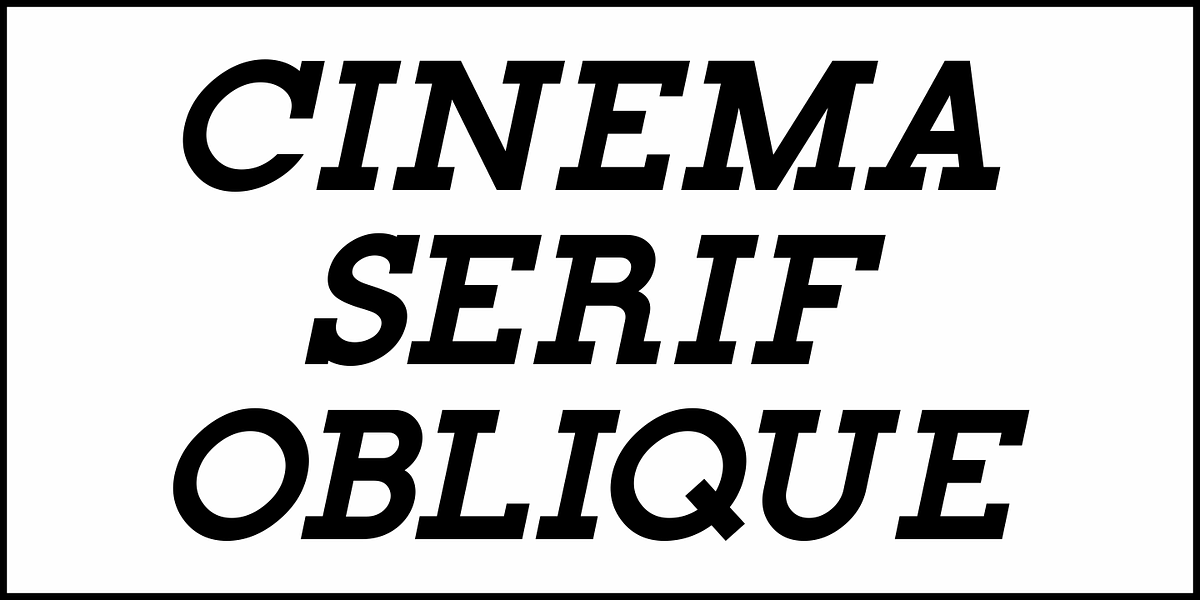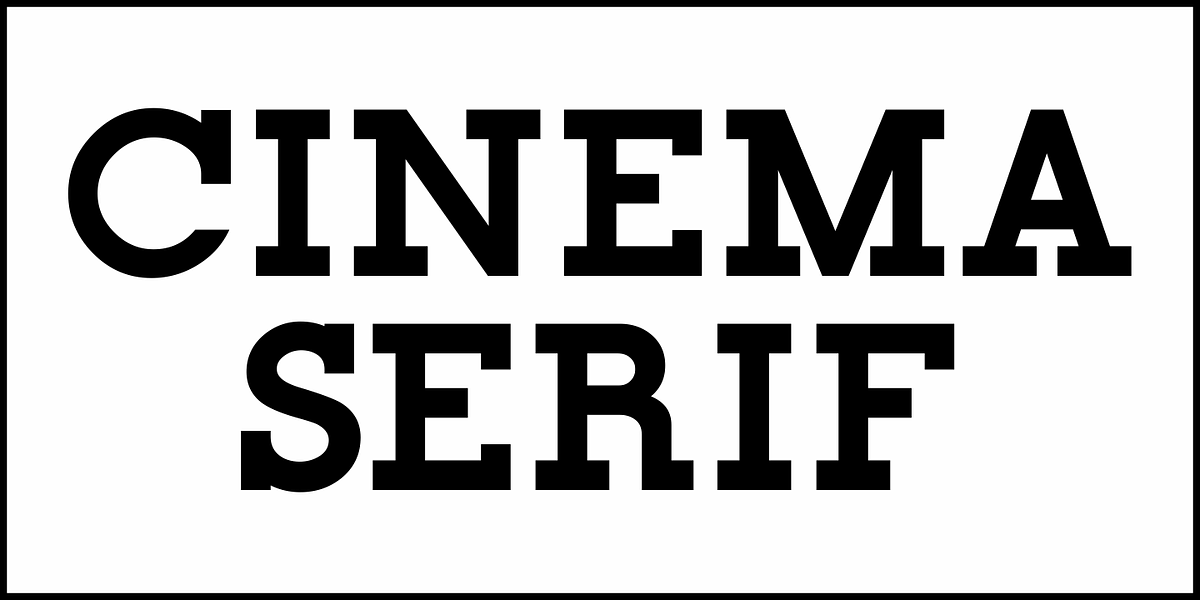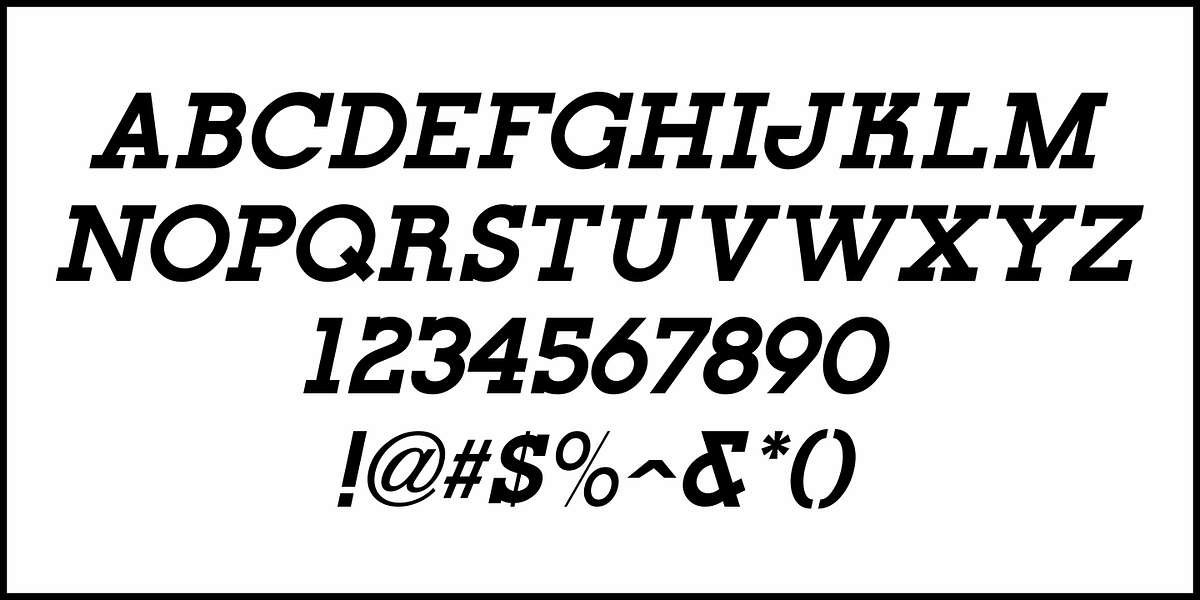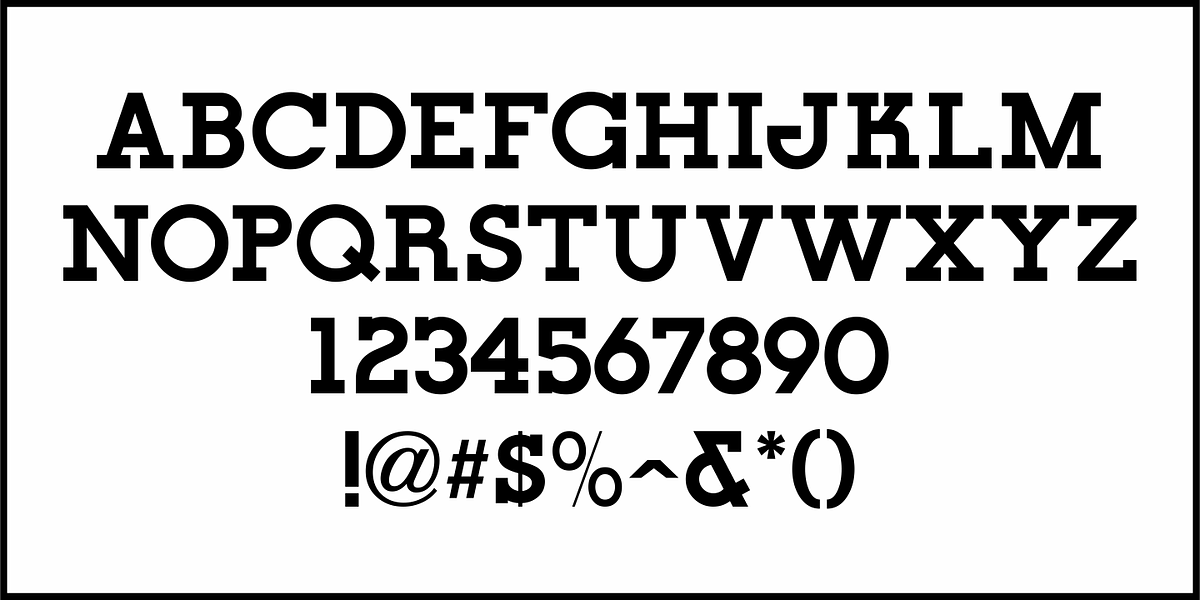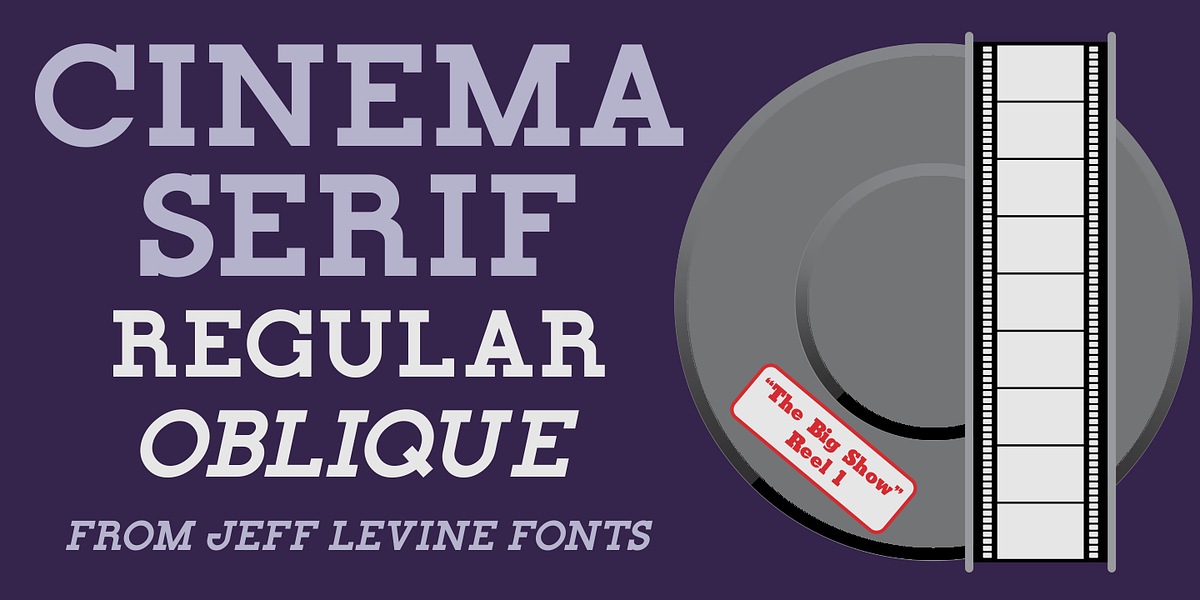
Cinema Serif JNL
Advertisements in the September,1936 French movie publication “La Cinématographie Française” featured a hand lettered slab serif type design that is now available as Cinema Serif JNL in both regular and oblique versions.